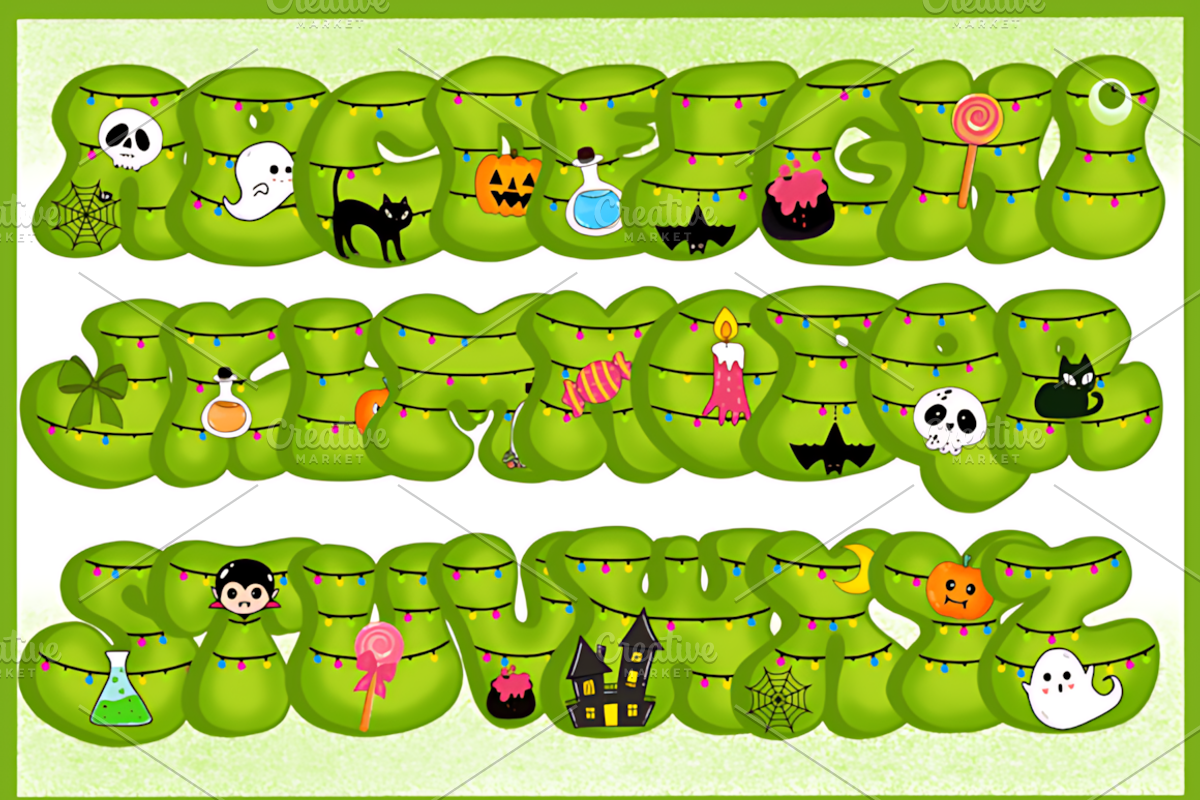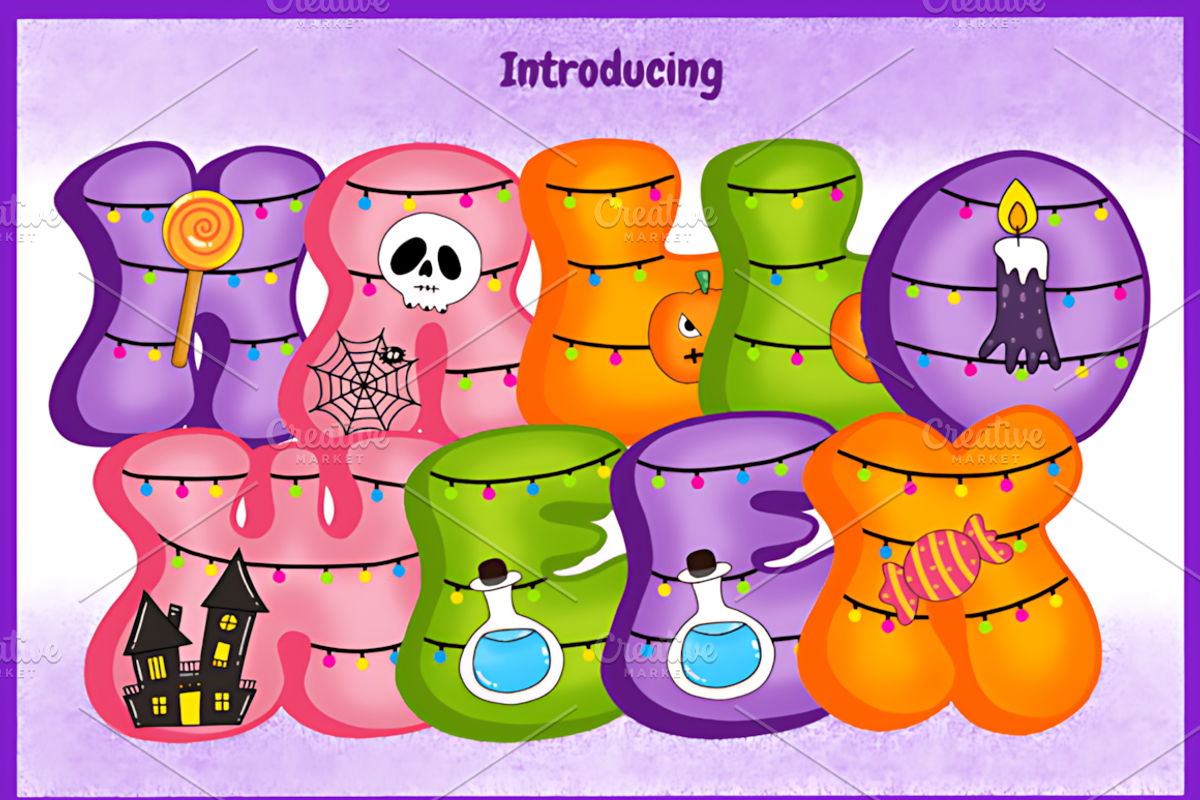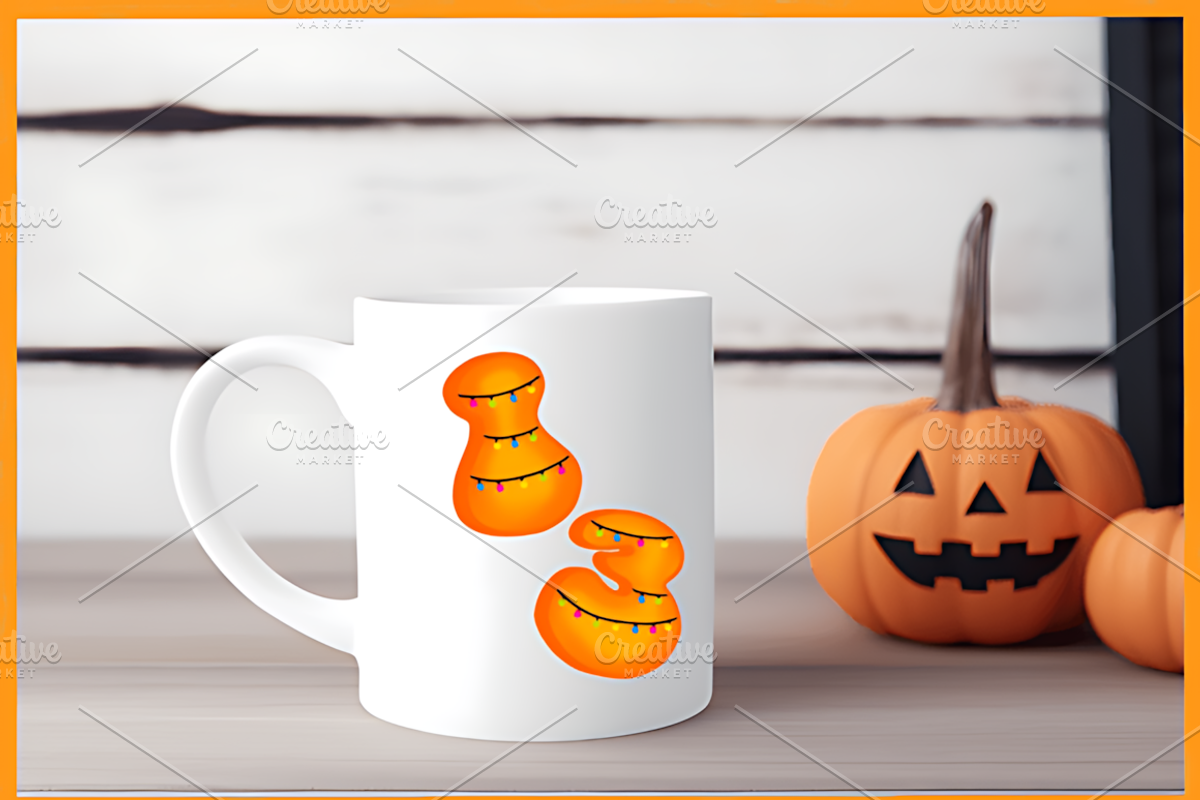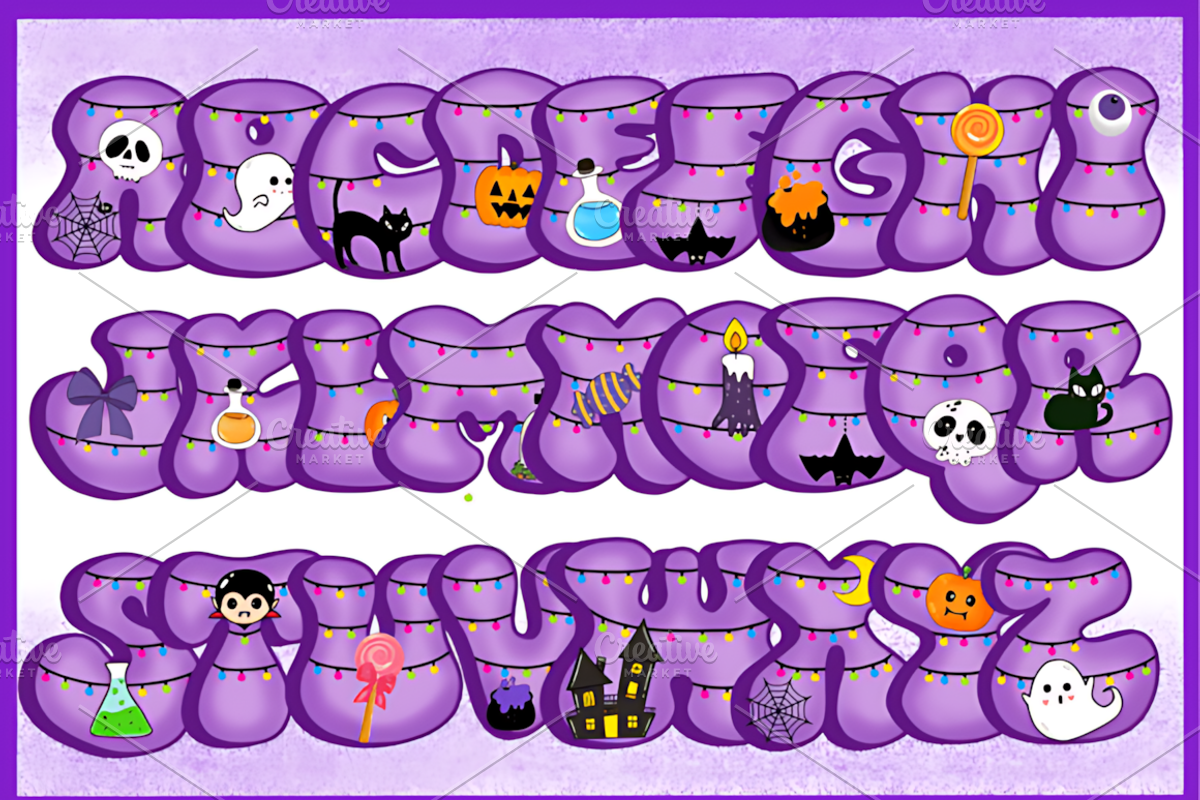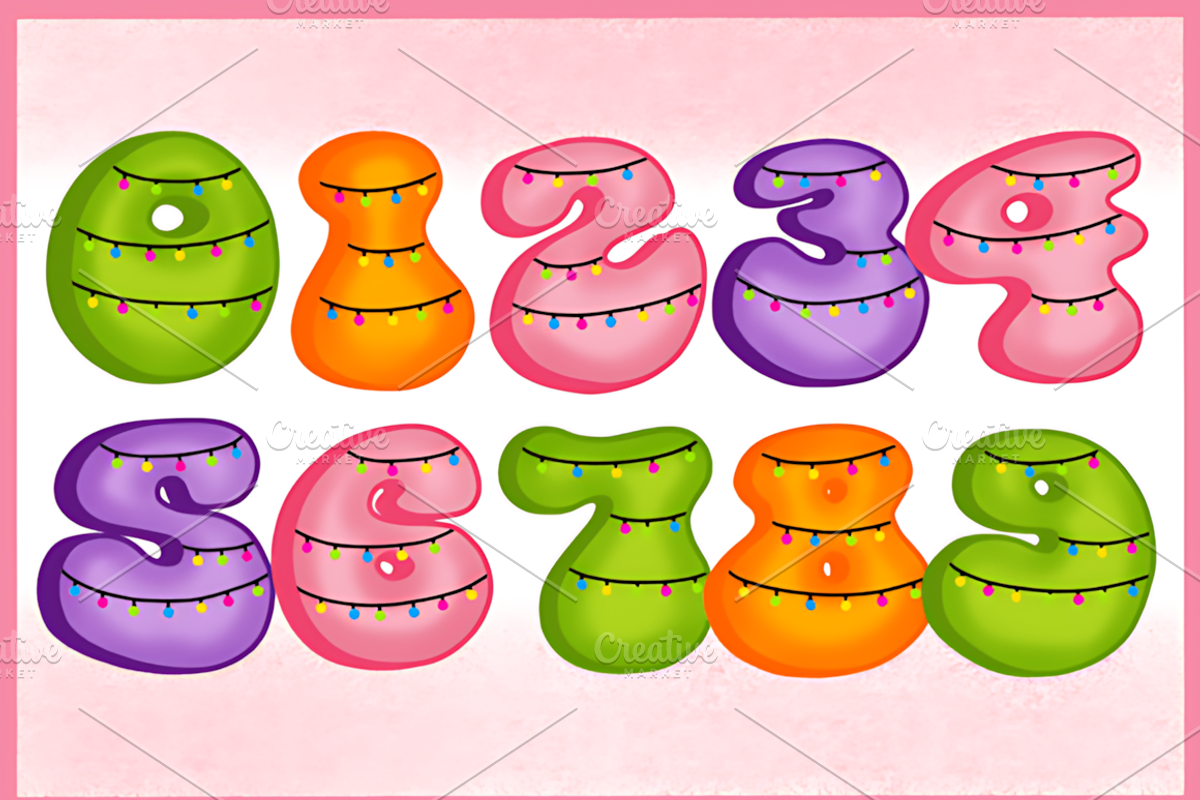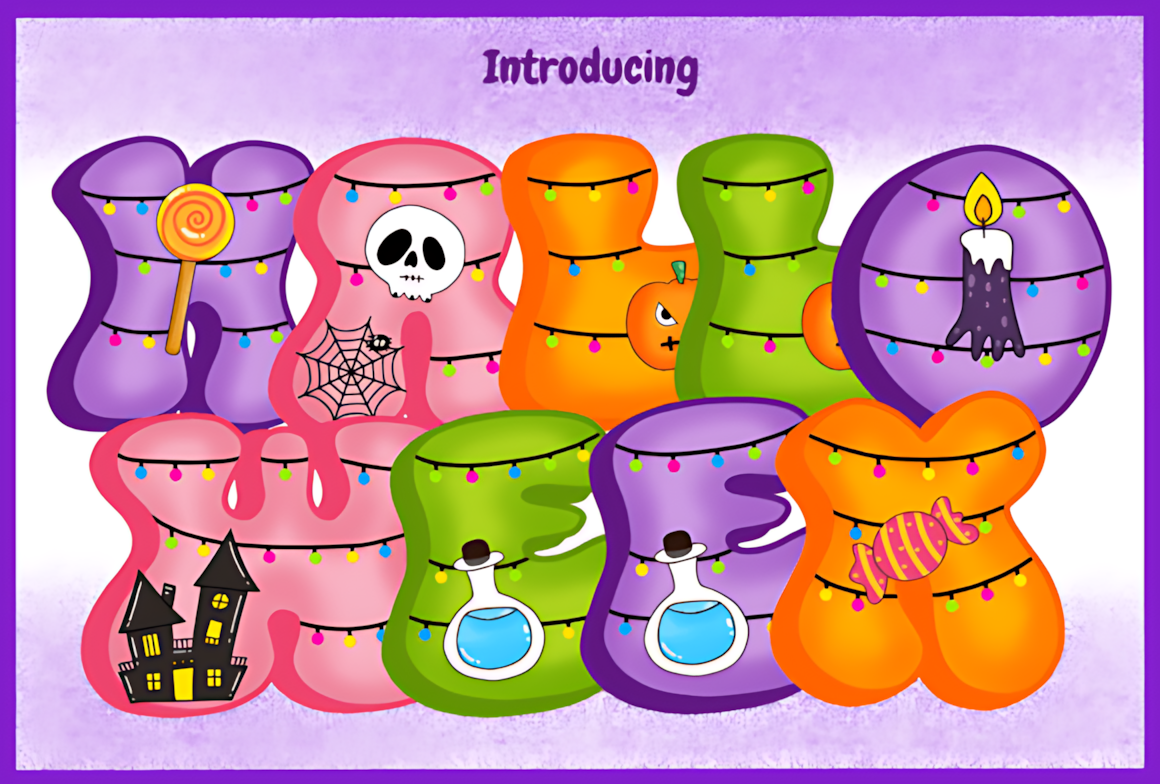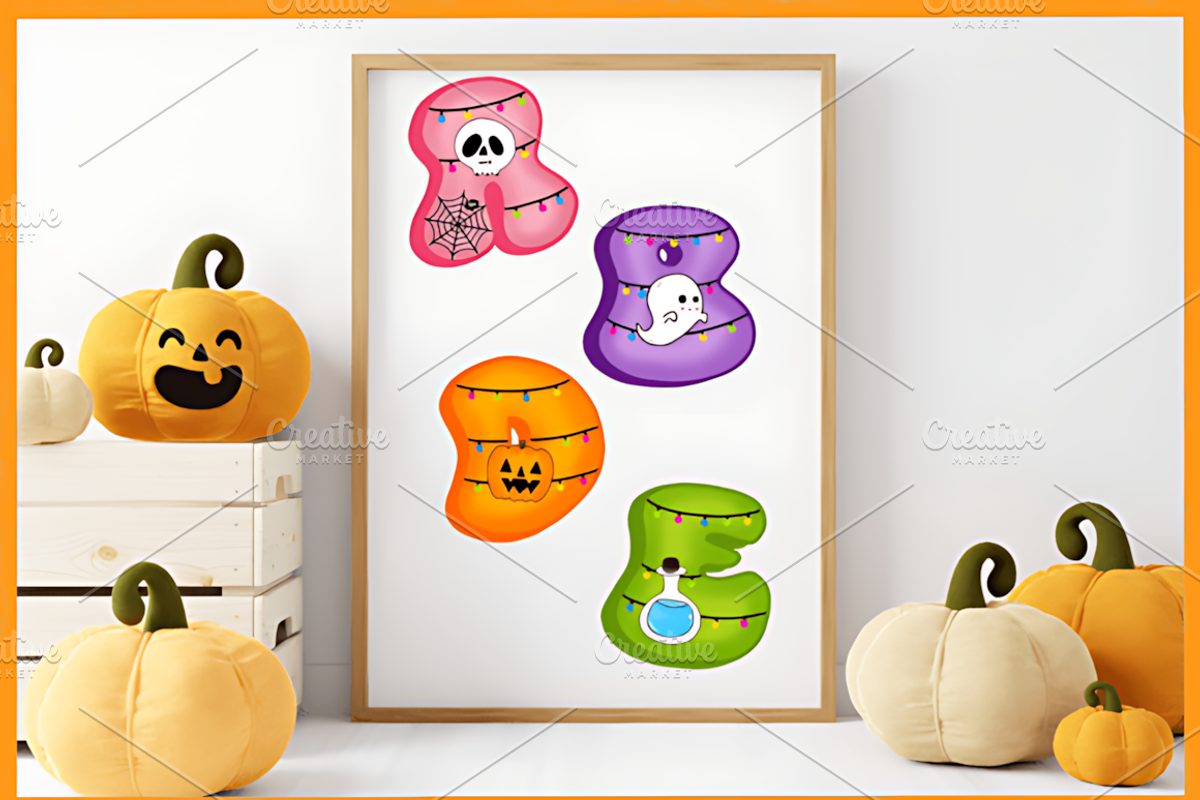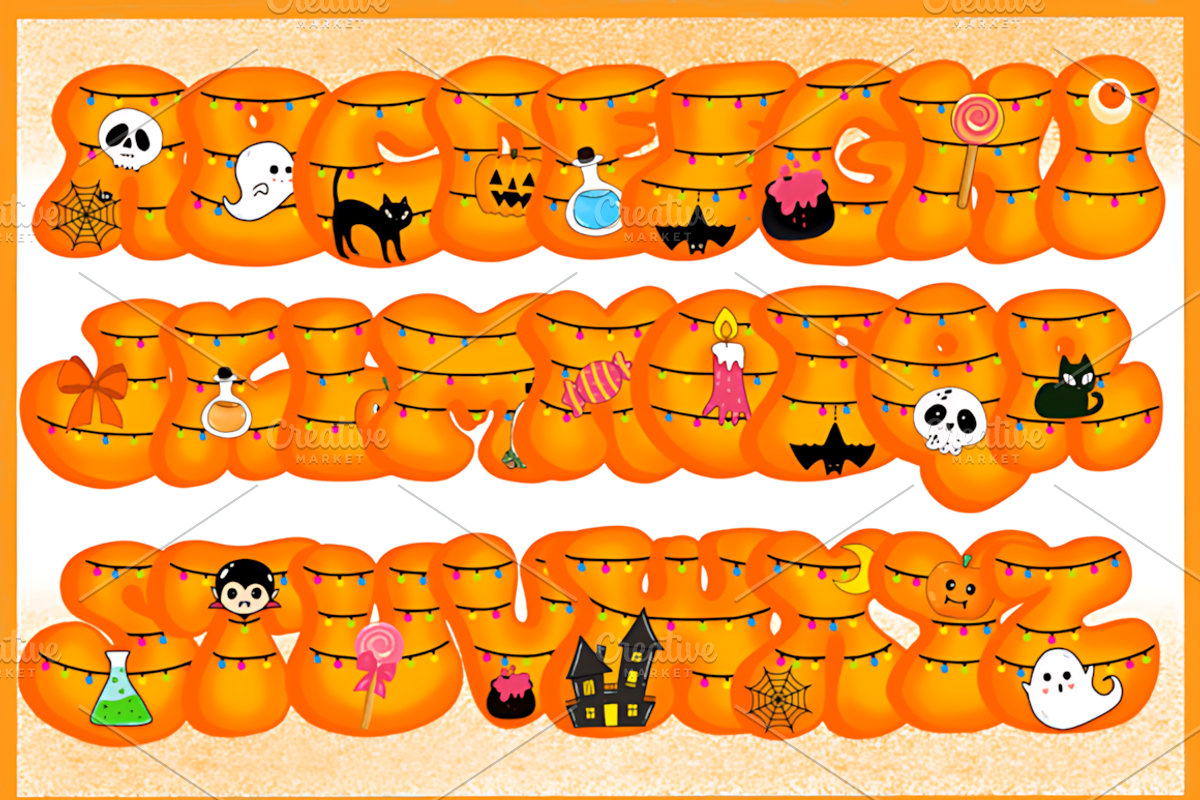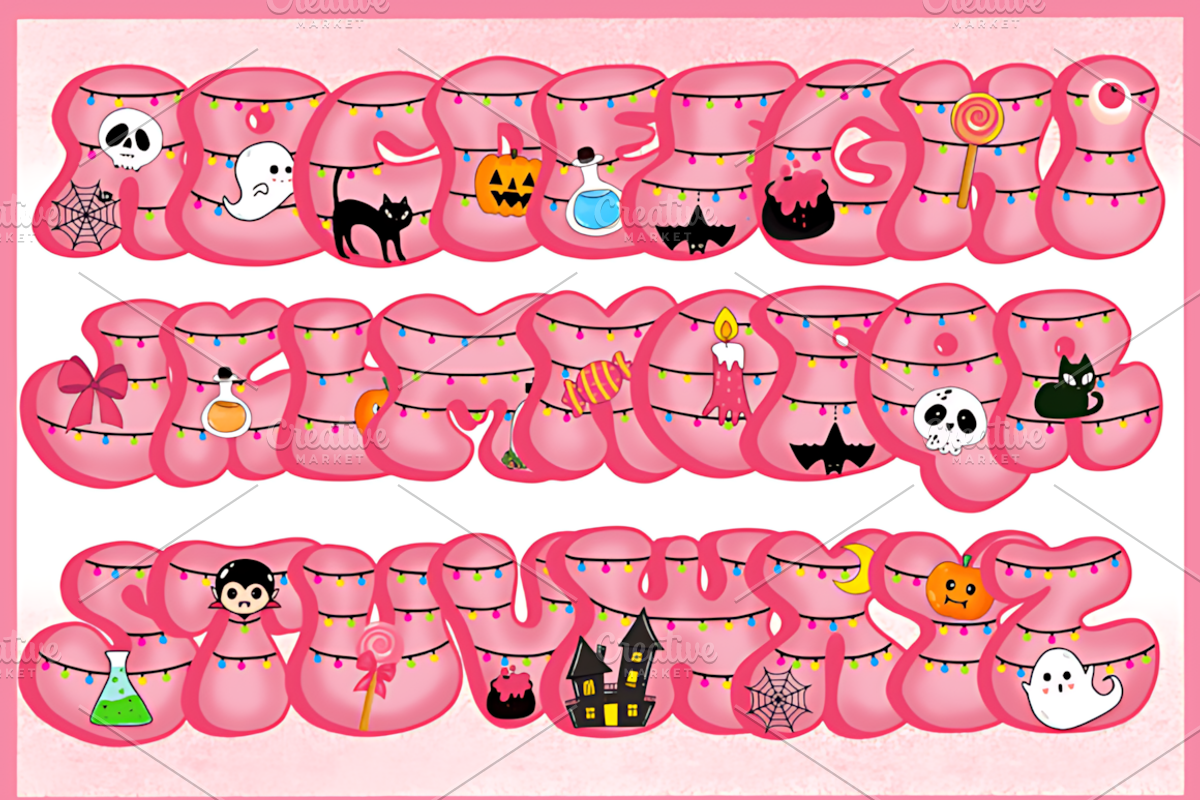
Halloween Font
Cute Halloween Ghost Alphabet & Pumpkin Letters – Spooky Halloween Clipart Alphabet Design Get ready for a spooky and fun Halloween season with this adorable Halloween Alphabet Collection! 🎃👻
This cute and colorful alphabet design features playful Halloween-themed characters and decorations, including ghosts, pumpkins, skulls, spider webs, candy, potions, bats, black cats, candles, haunted houses, and creepy-cute Halloween elements.
The fun orange, purple, pink, and green color palette makes these letters perfect for creating eye-catching seasonal crafts and products.